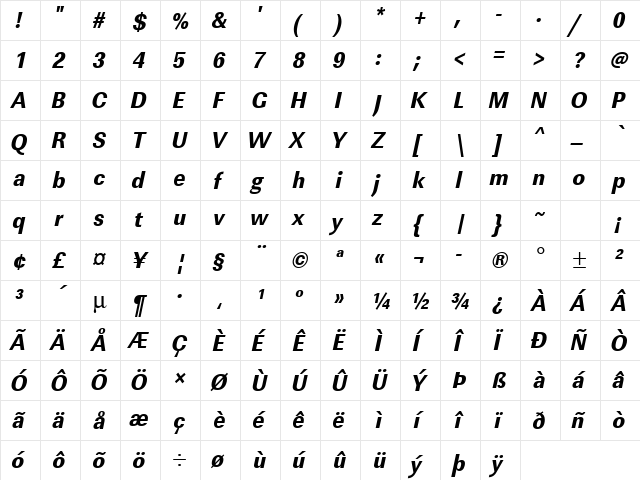
URWLinearTExtBolExtNar Oblique
Design Context for URWLinearTExtBolExtNar Typeface
URWLinearTExtBolExtNar offers clean, dependable letterforms without strong stylistic allegiance, making it a practical choice for designers who need flexibility. The slanted form adds forward momentum and visual energy.
Pro Tip: Use URWLinearTExtBolExtNar for emphasis, pull quotes, and subheadings where its slanted energy can add rhythm to the layout.